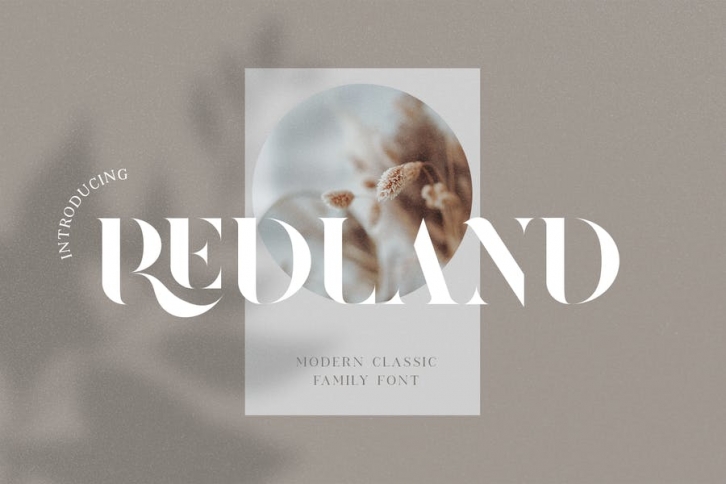
Redland is a modern classic serif font that created for brand or logo design purpose. It teases your eyes with its curves yet still able to maintain its classy composure. The variety of weights provide a range of choices that will help you find the best typographic colour. The available stylistic Ligature and Alternate offer a perfect font for anything your creativity takes you.
• 5 Weights (Light, Regular, Semibold, Bold, Black)
• Basic Latin A-Z and a-z
• Numerals & Punctuation
• Stylistic Alternates & Ligatures
• Multilingual Support for ä ö ü Ä Ö Ü ...